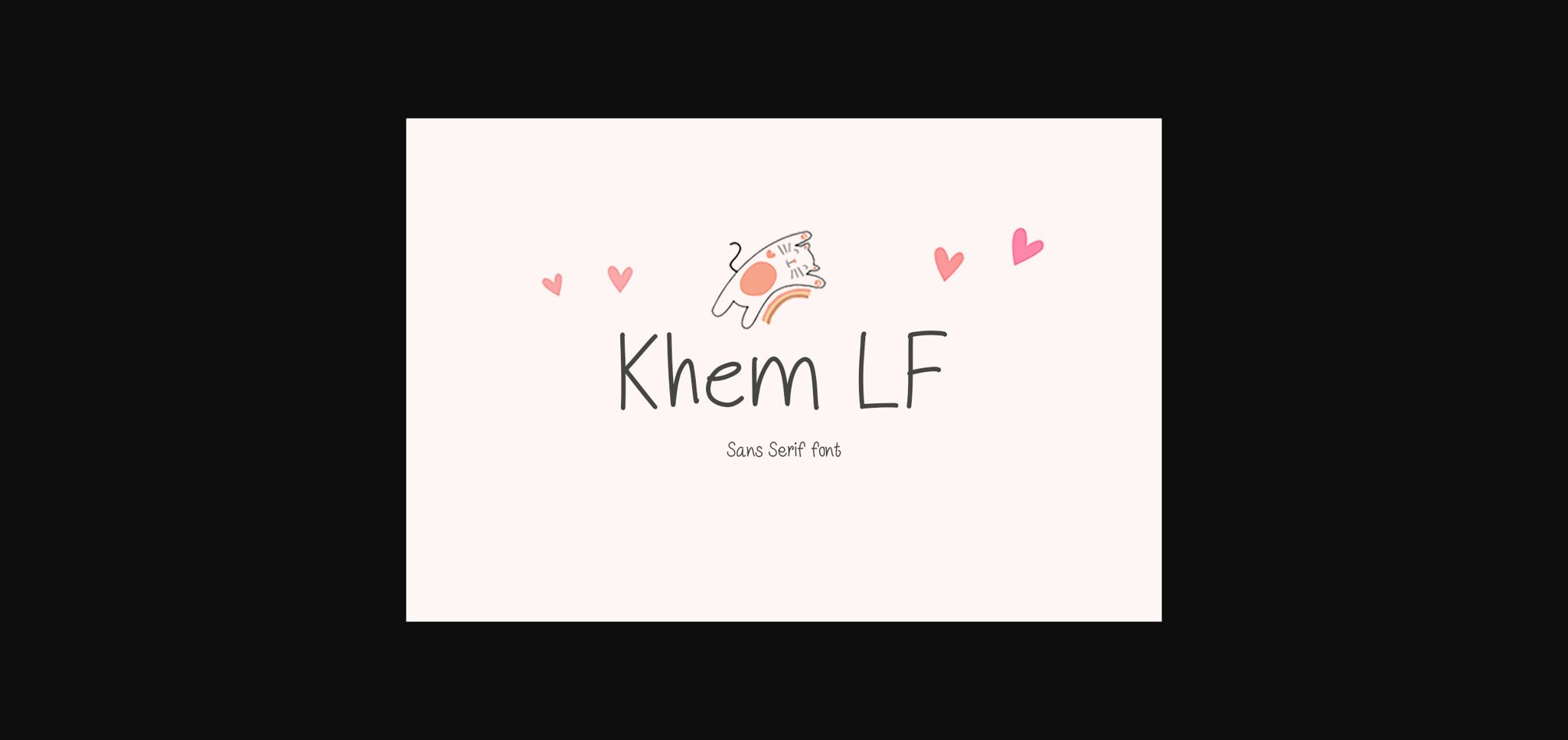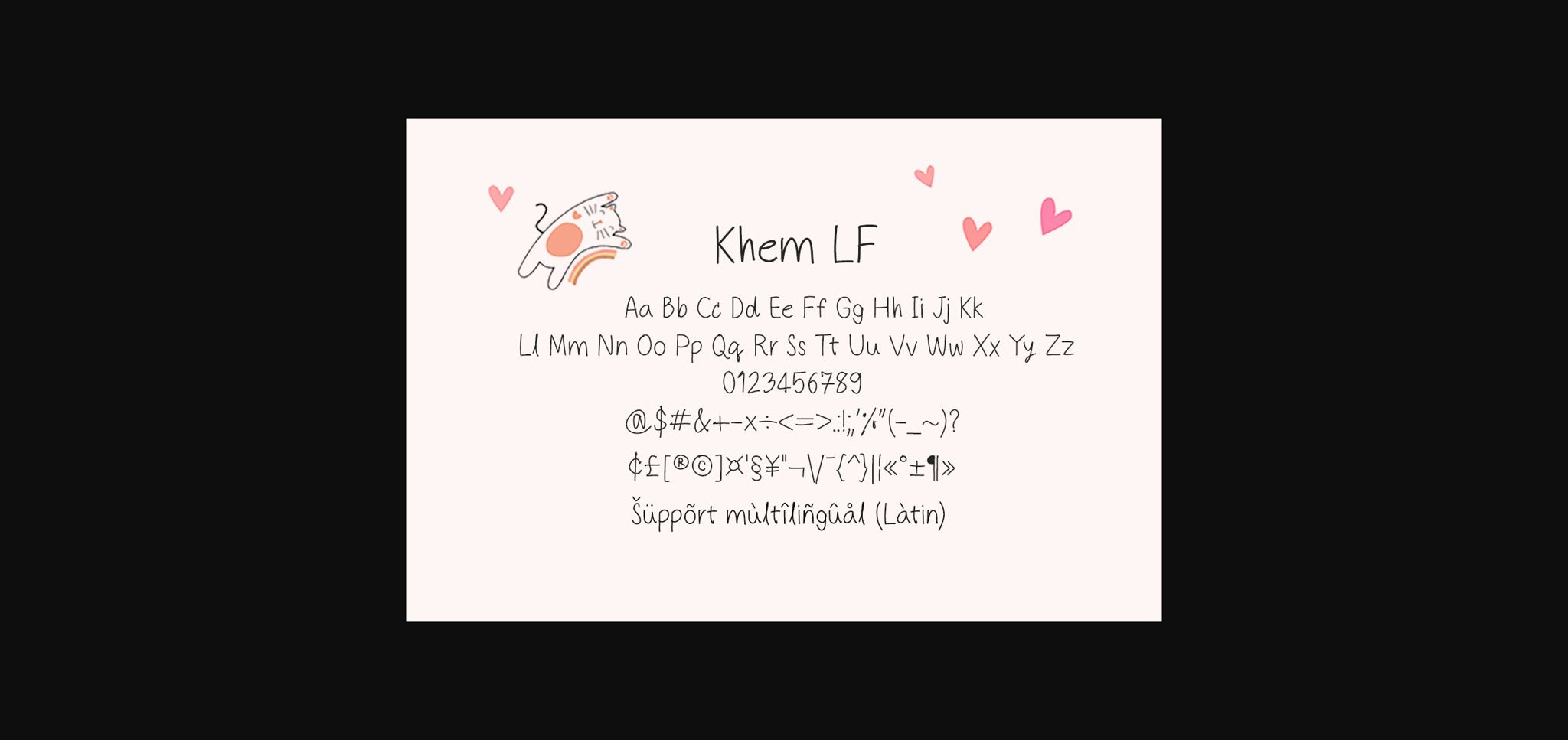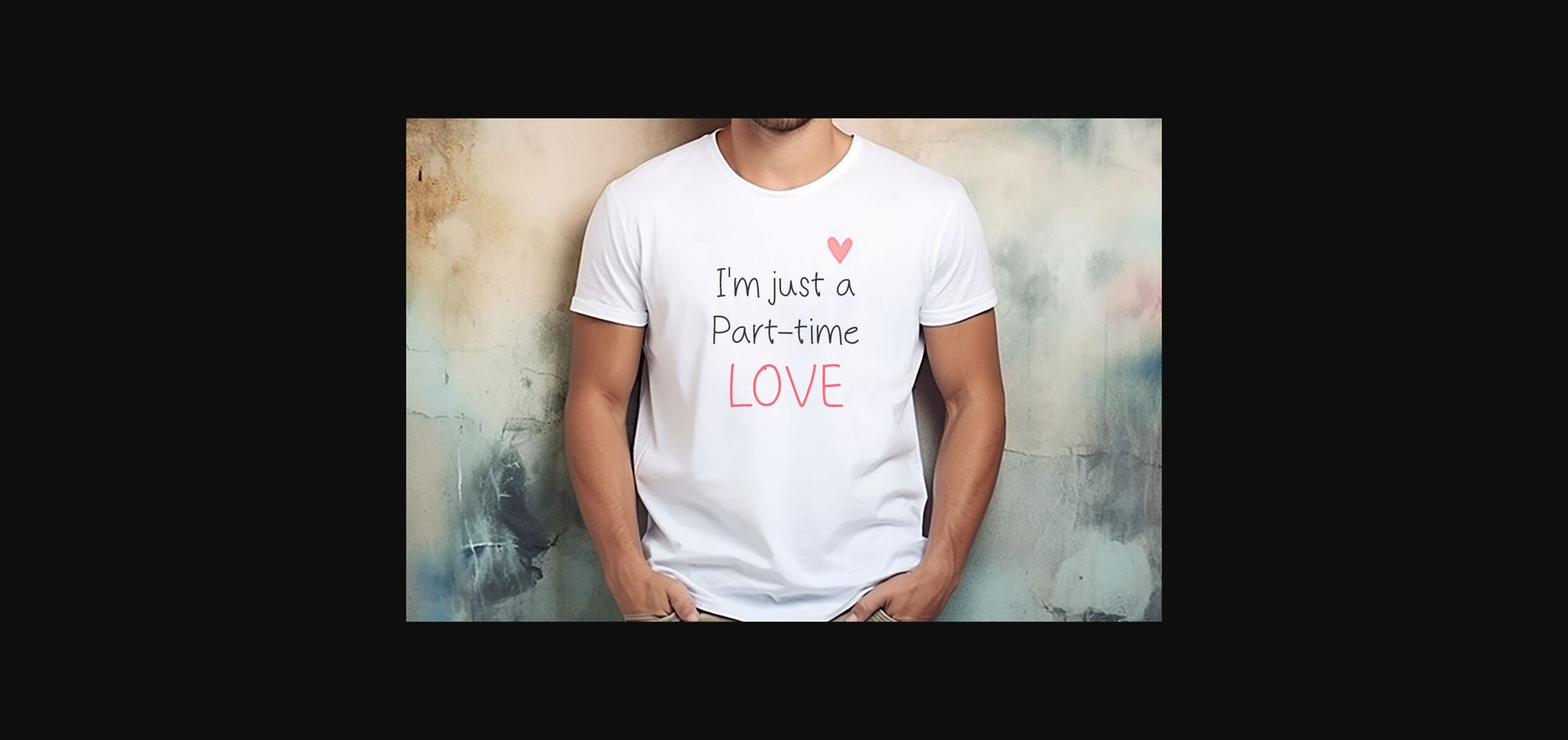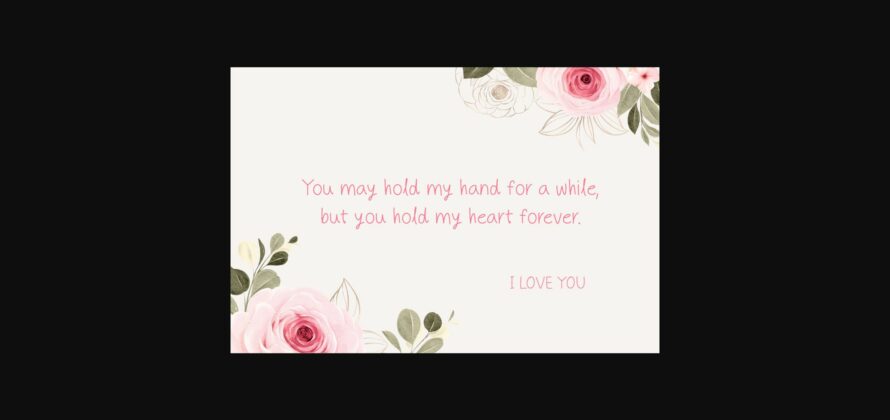
About Khem Lf Font
Khem LF is a cute playful and whimsical handwritten font. Its informal style and casual vibe make it awesome for your fun projects or diary planners, thank you cards, quotes, greeting cards, logos, posters, blogs, bags, and more!